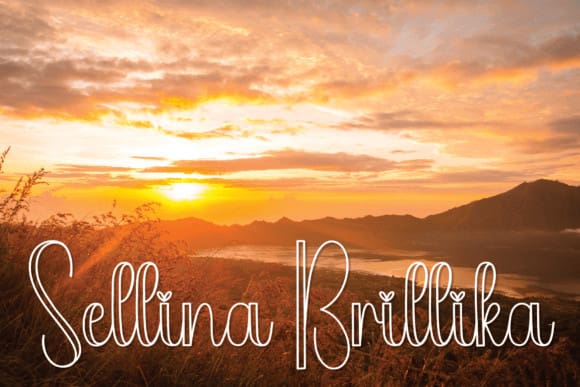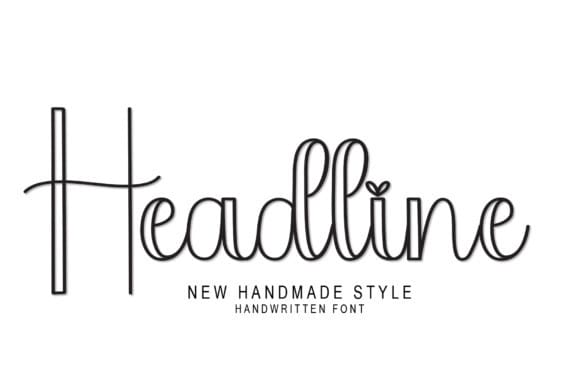
Headline Script Font
Headline Script Font is one playful and cute handwritten font. It’s perfect for wall displays, wedding invitations, social media post logos, advertisements, product packaging, product designs, labels, photography, watermarks, invitations, stationery, and any project that requires taste handwriting.